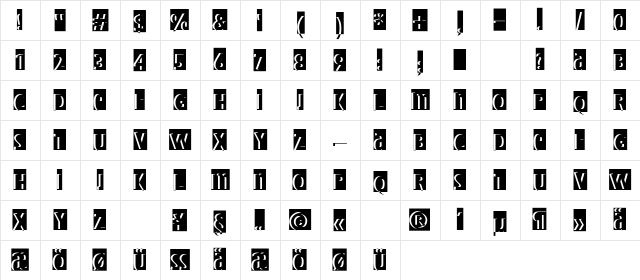
BradburysShadowPaseo Regular Free Font
BradburysShadowPaseo Regular
Design Context for BradburysShadowPaseo
BradburysShadowPaseo is built around its visual character rather than neutral utility - its distinctive forms are designed to make an impression at display sizes.
Font Pairing: Pair with a clean neutral sans-serif for body copy to let BradburysShadowPaseo's character lead without overwhelming the composition.
Pro Tip: Use BradburysShadowPaseo exclusively at display sizes - it was designed to be seen, not read at length. Let a neutral companion handle body copy.